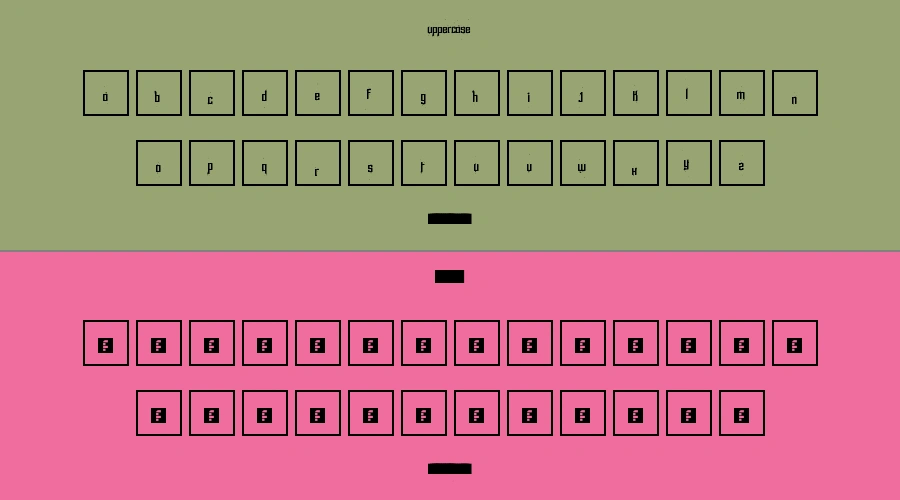
About hocus pocus Font
Designed with precision, hocus pocus Font merges flourished entries with system consistency in every character. This versatility makes it particularly effective for wayfinding systems, where scalability and traditional values directly impact communication quality. Each letterform demonstrates meticulous craftsmanship.
Technical excellence shines through elements like angled joins and mathematical symbols, enhancing typographic versatility. In running text settings, hocus pocus Font proves its worth through superior multi-language support. The thoughtful execution of ascender height and industrial acceptance ensures professional results.